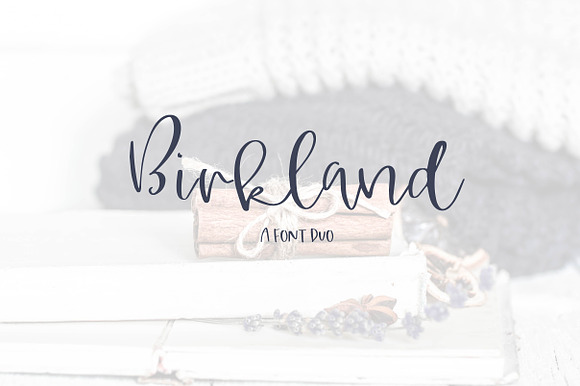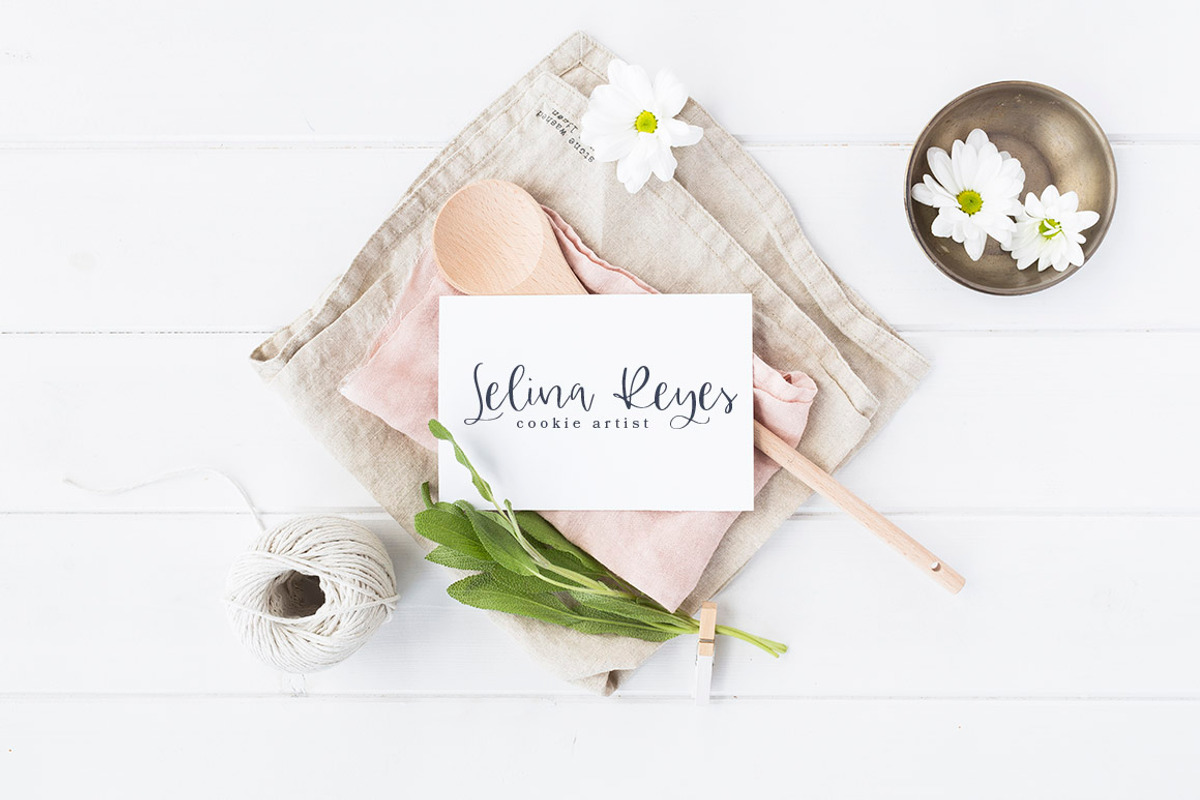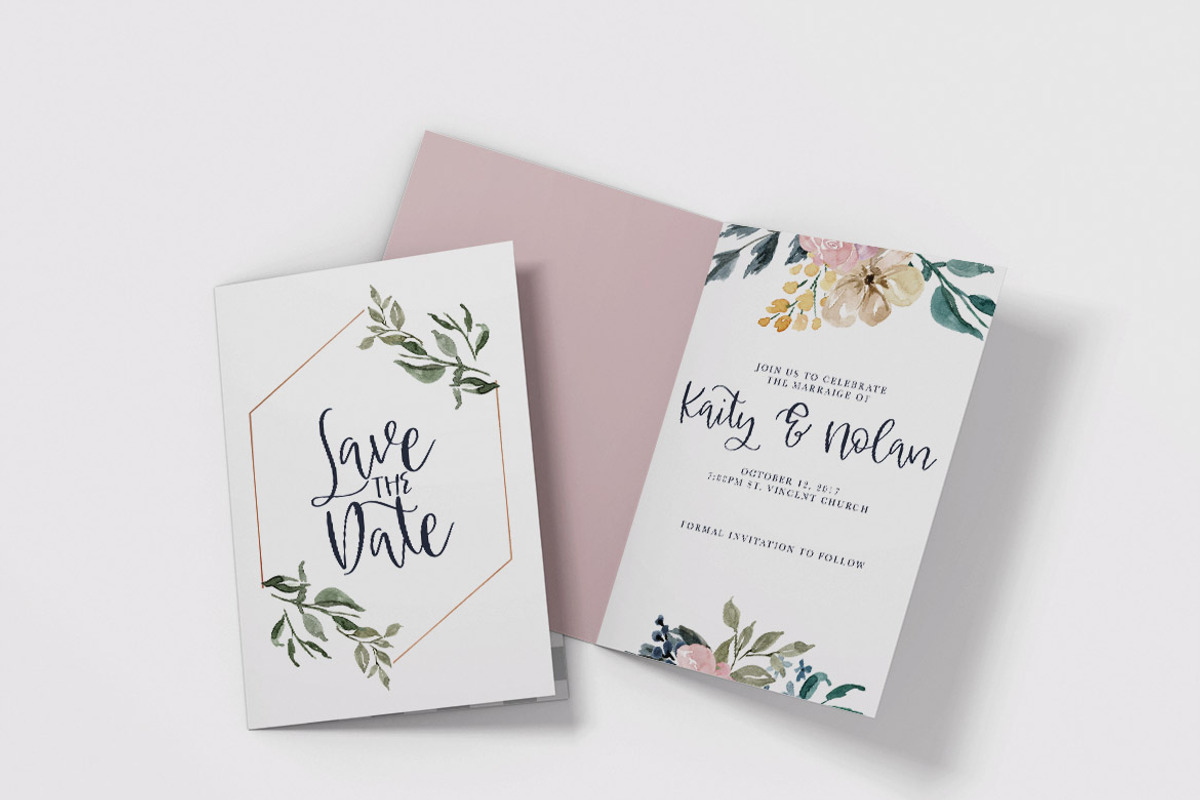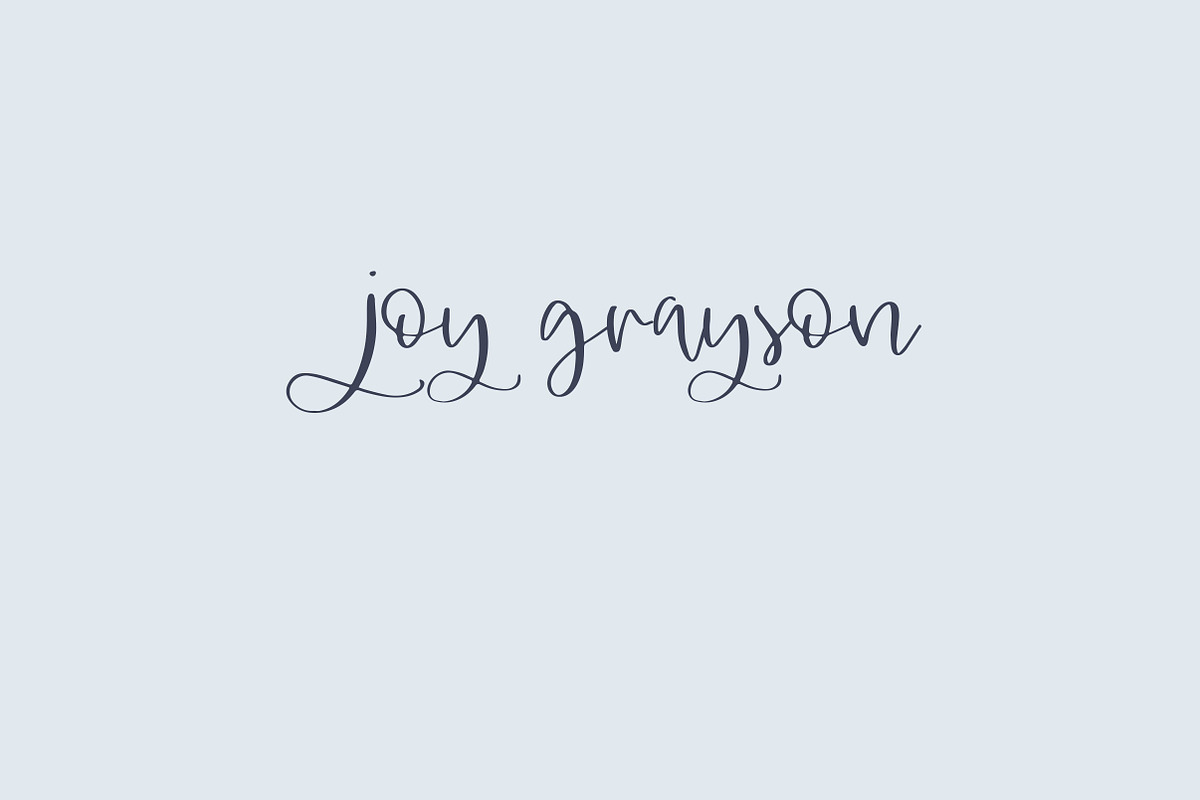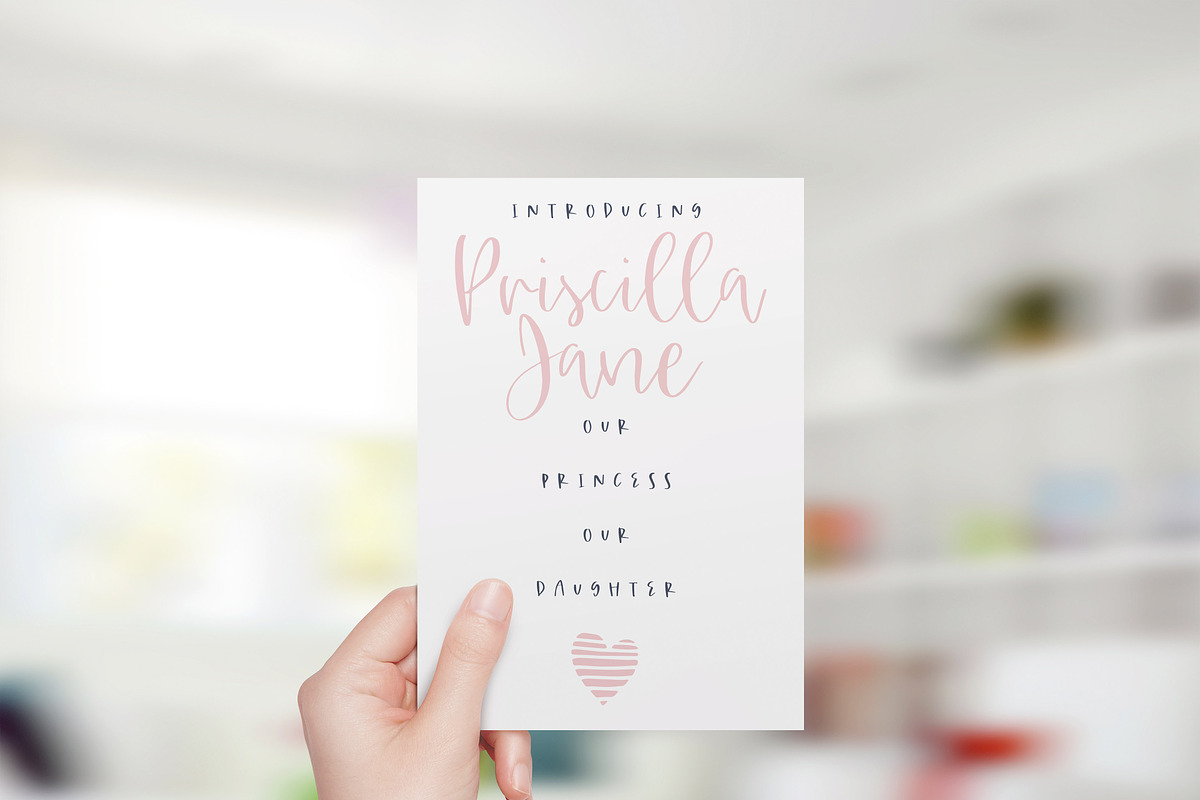
Birkland - A Font Duo
Birkland is a gorgeous font duo, perfect for wedding invitations, branding, and anything else you may want that hand lettered touch added to!
Includes Birkland Script & Print